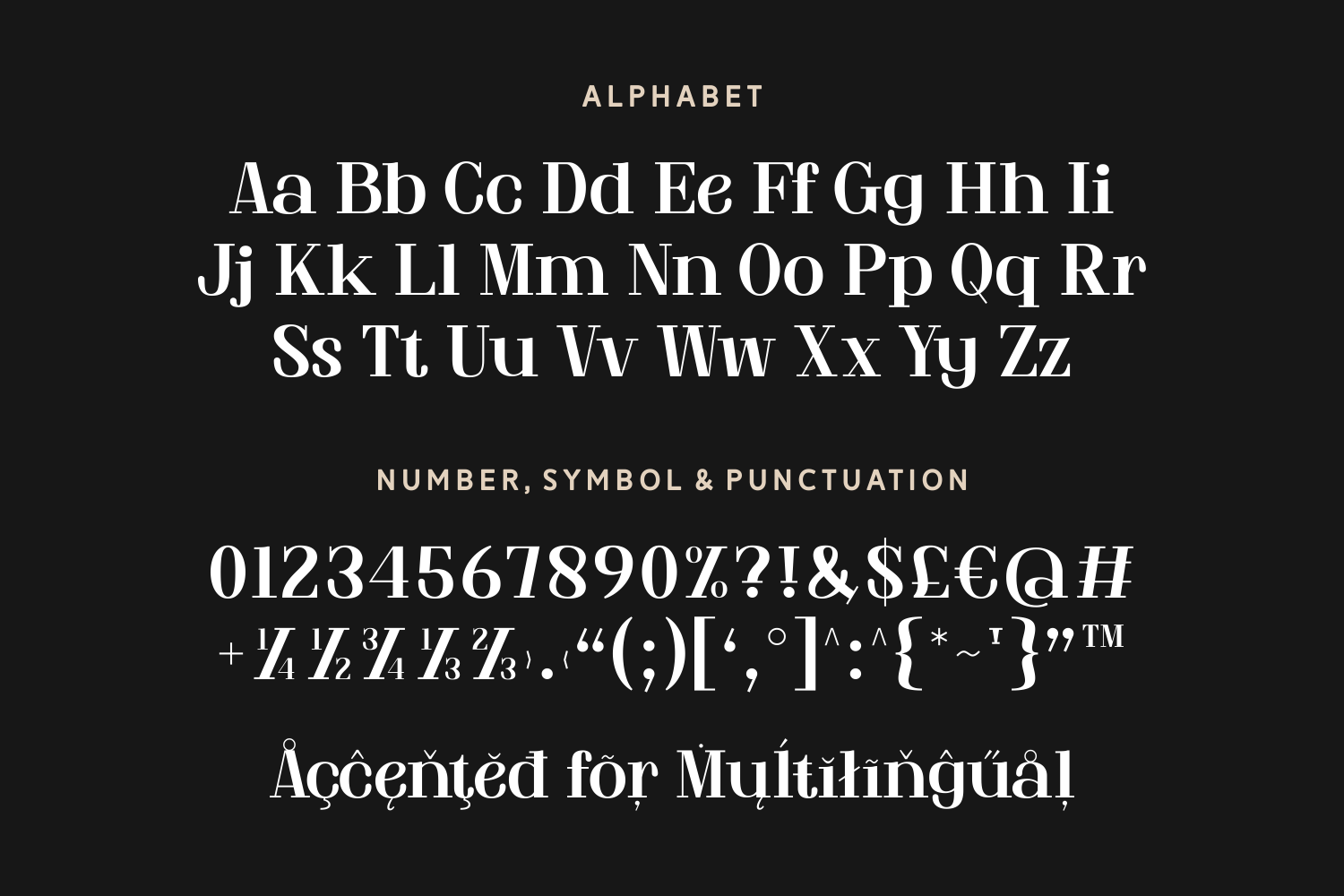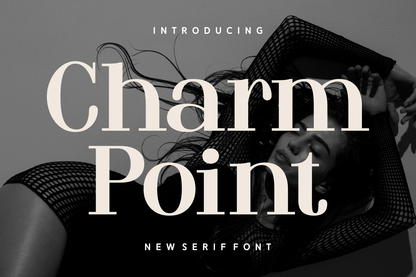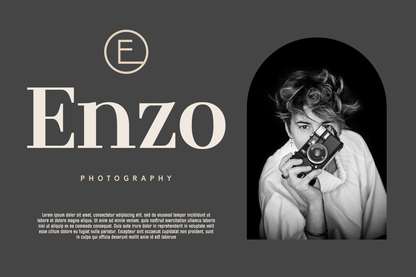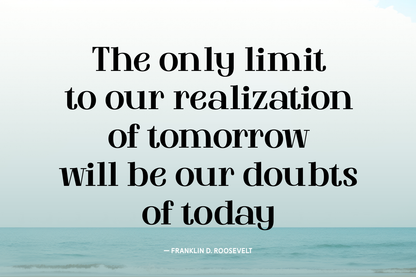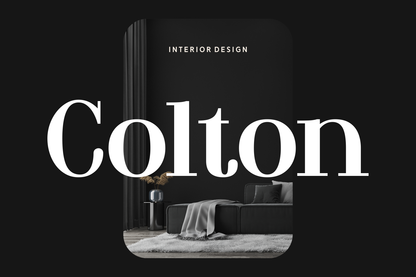
Charm Point is a bold and expressive modern serif font that effortlessly balances timeless elegance with high-end flair. With its sharp contrast, stylish curves, and delicately bracketed serifs, this font exudes sophistication and charm.
Whether used for magazine headlines, elegant logos, or refined social media graphics, Charm Point delivers a powerful statement with every letter. It also includes a complete set of uppercase and lowercase characters, multilingual support, numerals, punctuation, and stylish ligatures—making it as functional as it is beautiful.